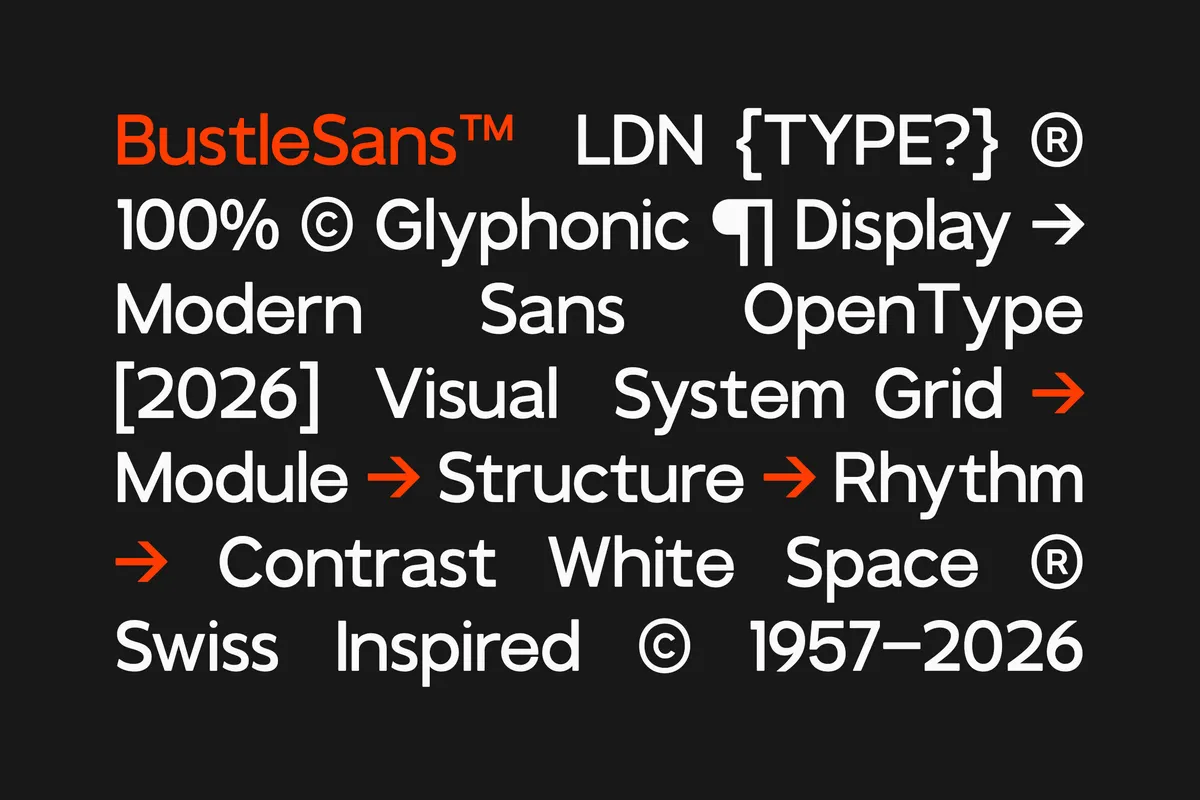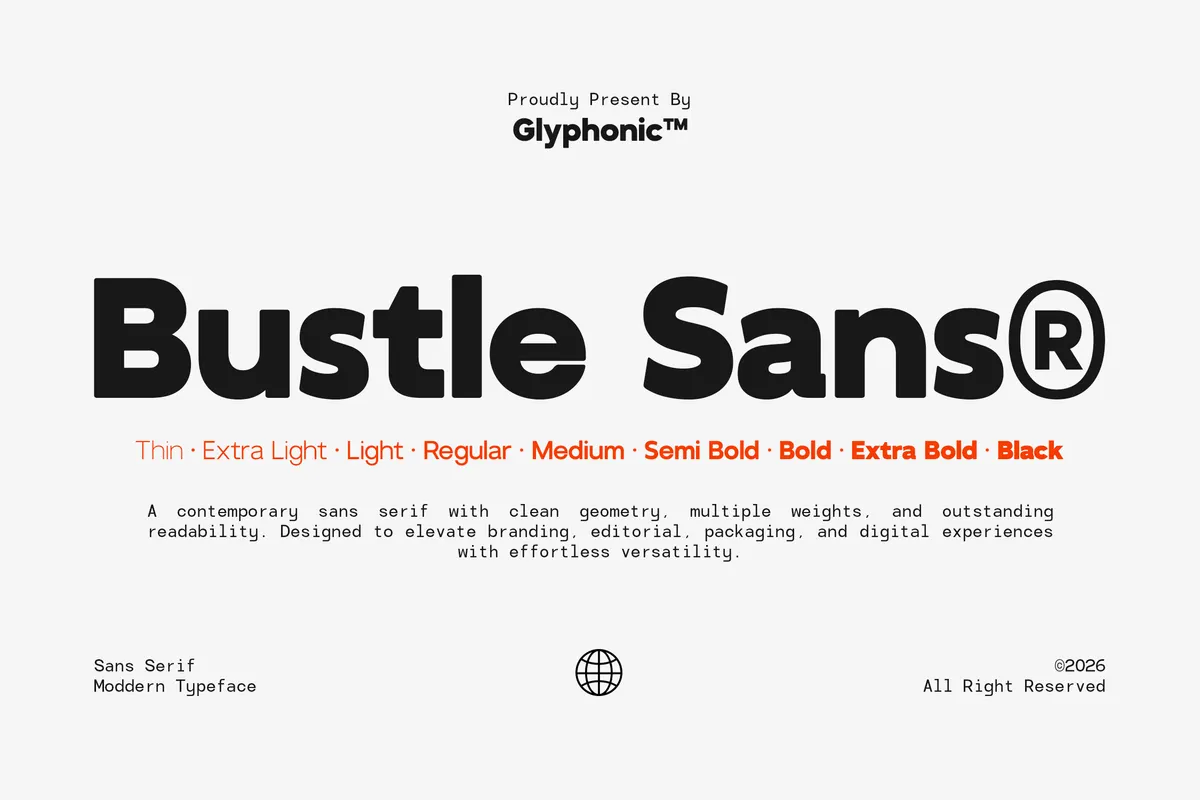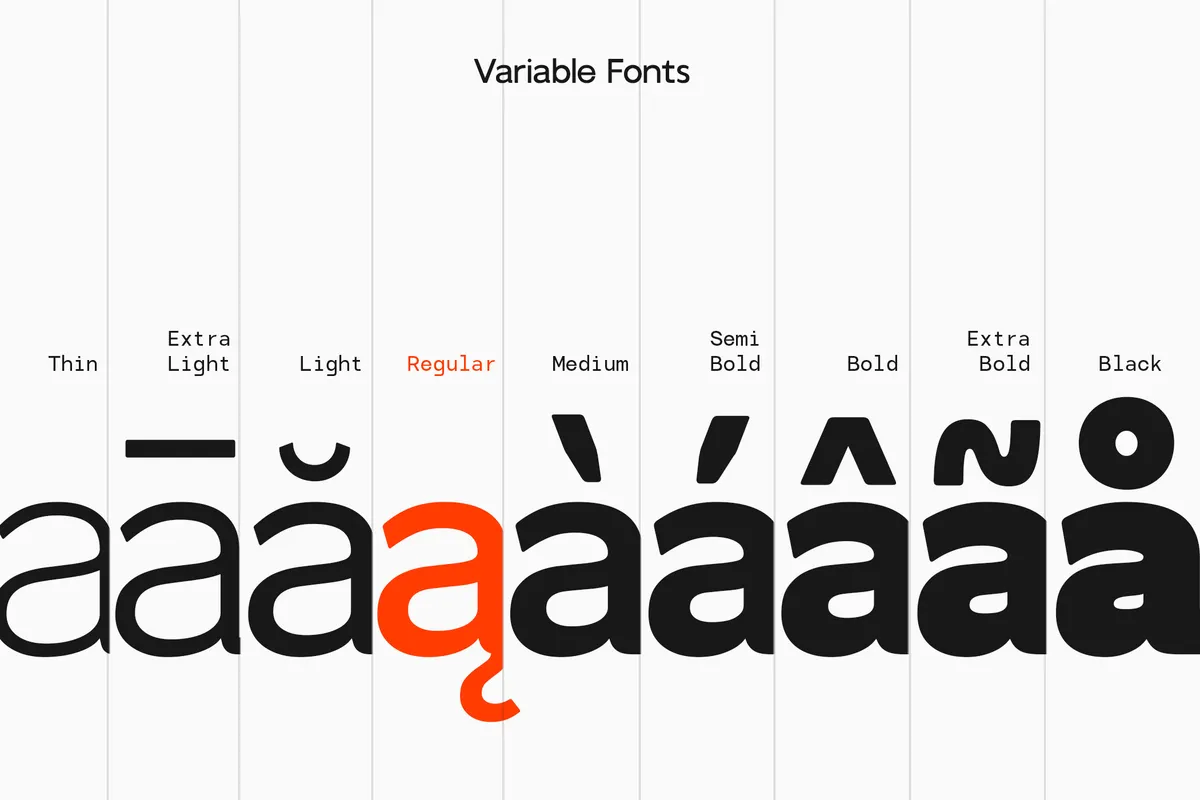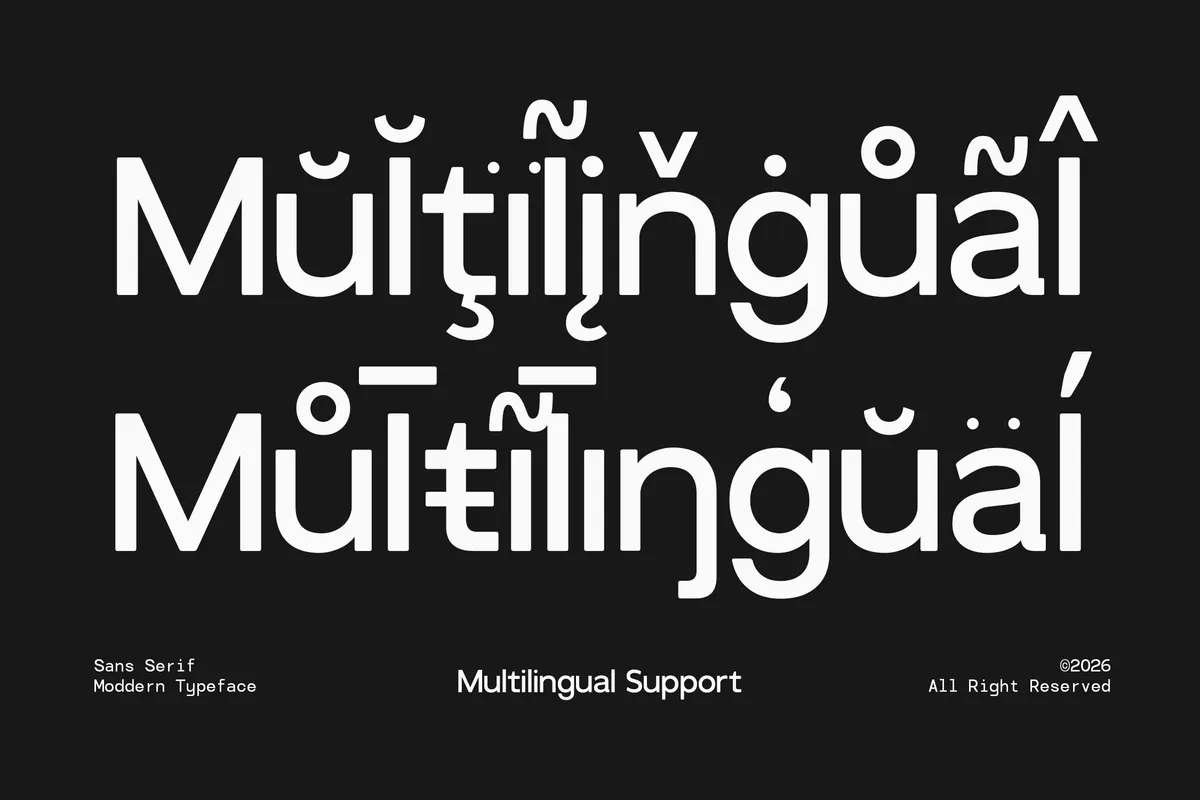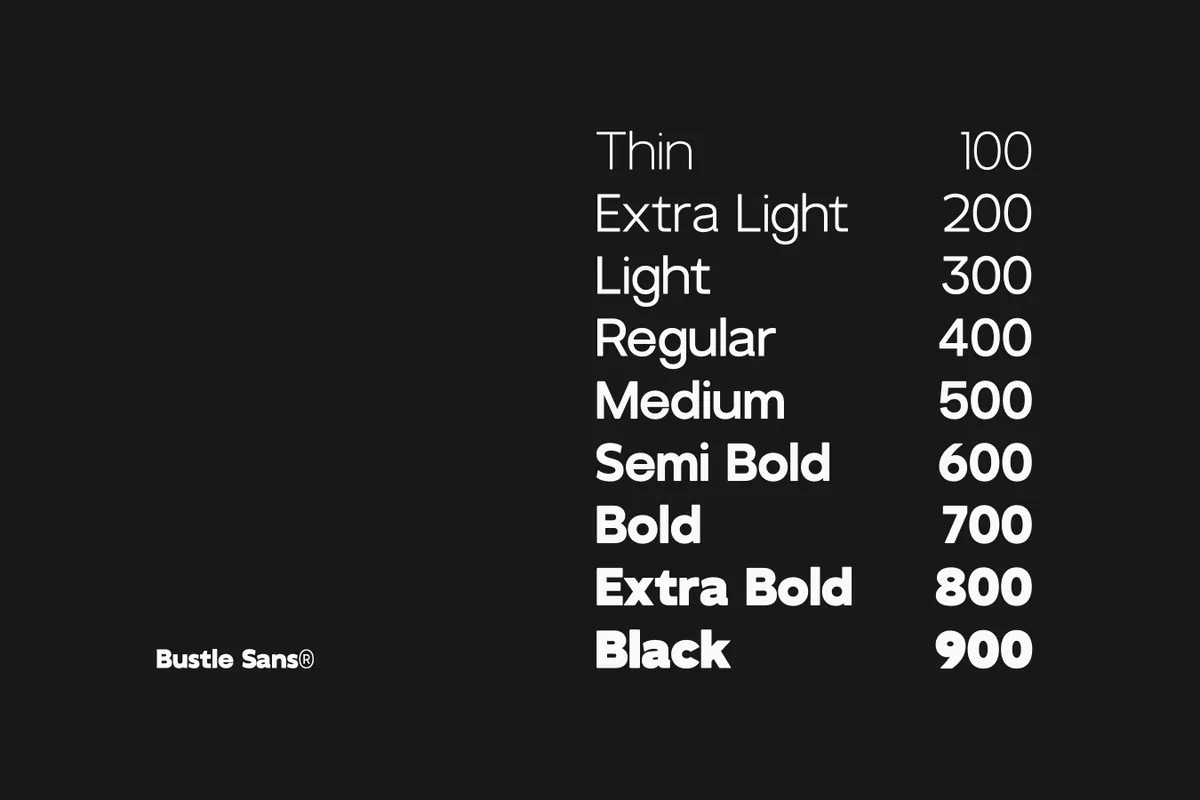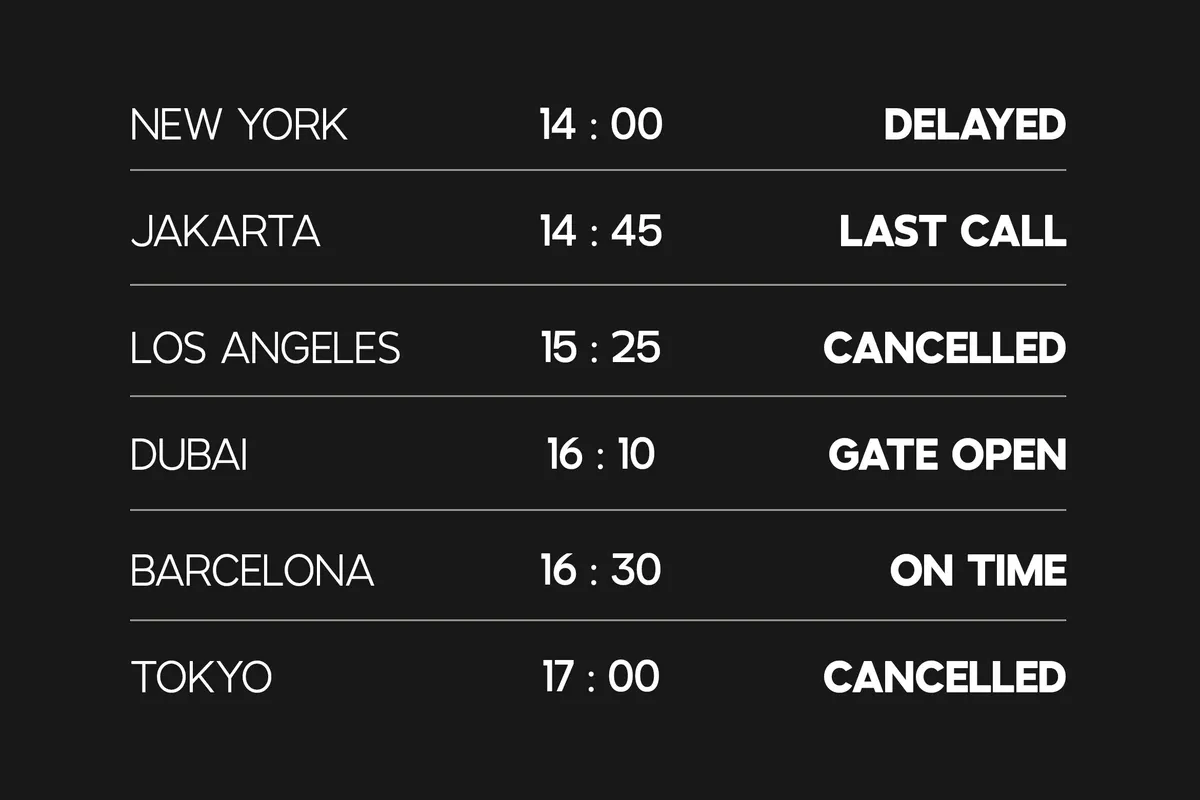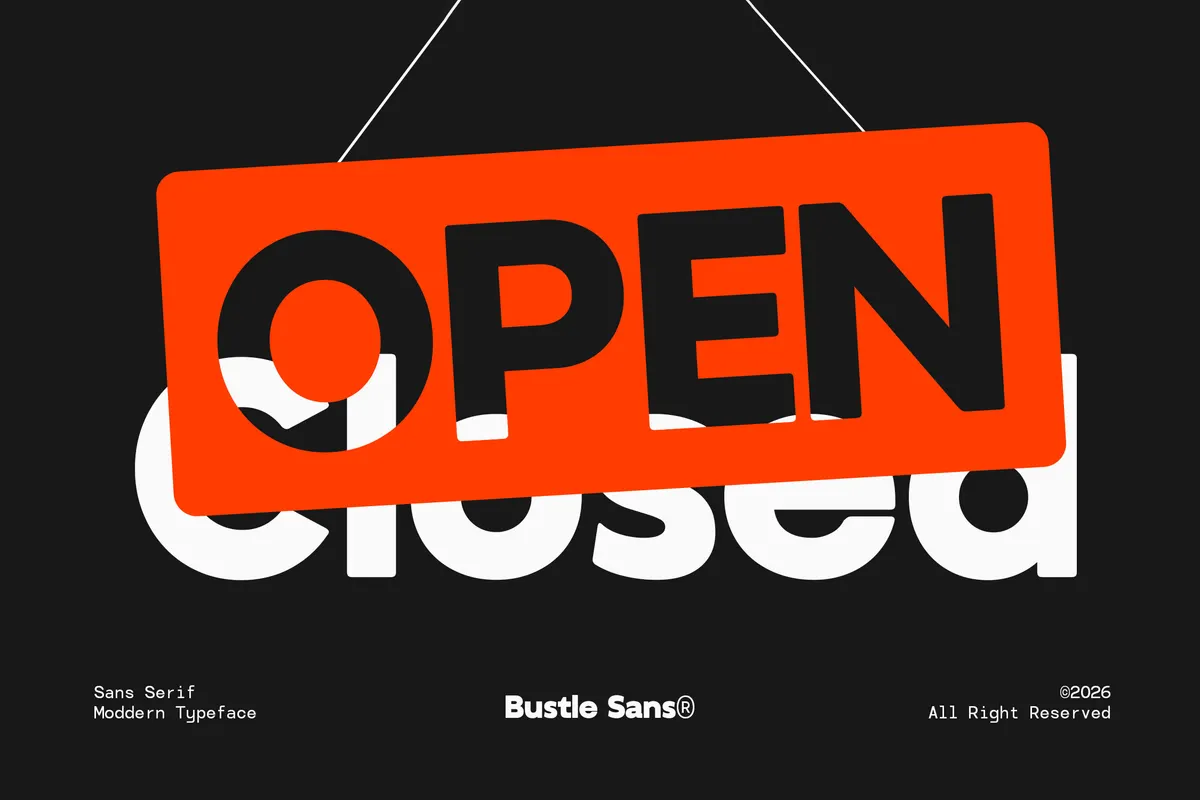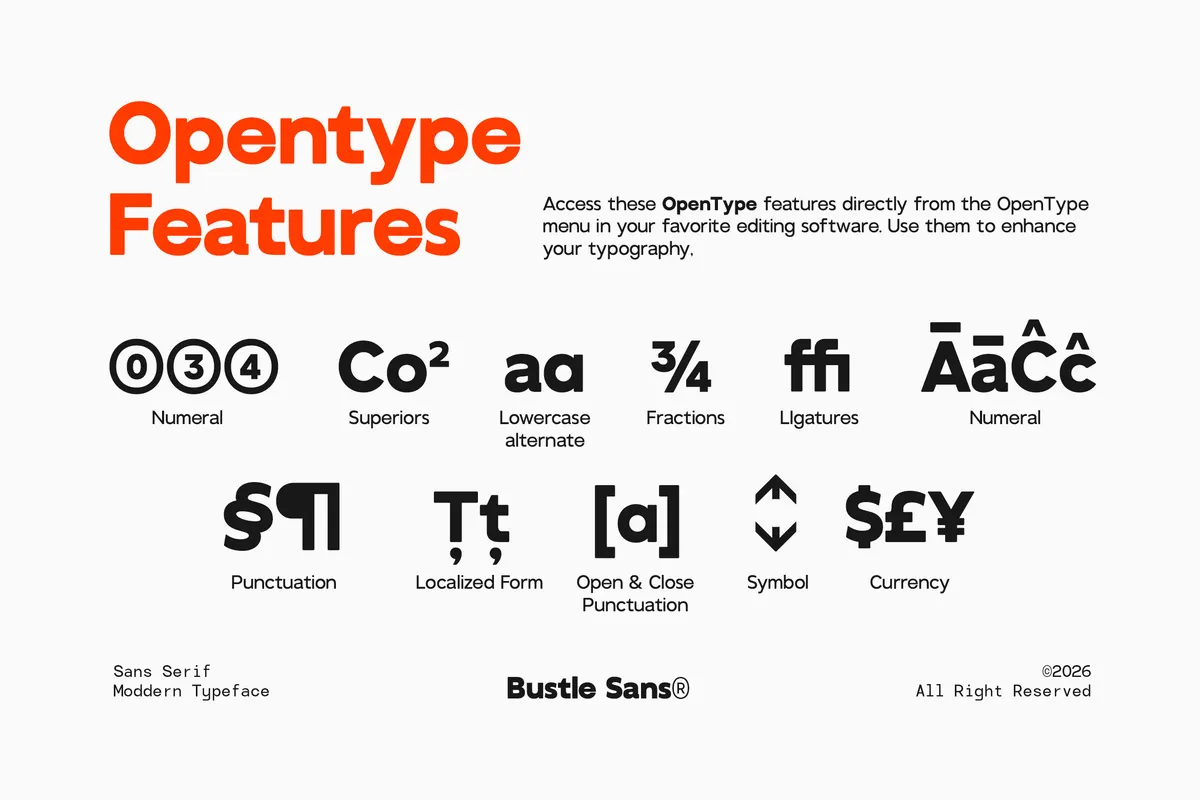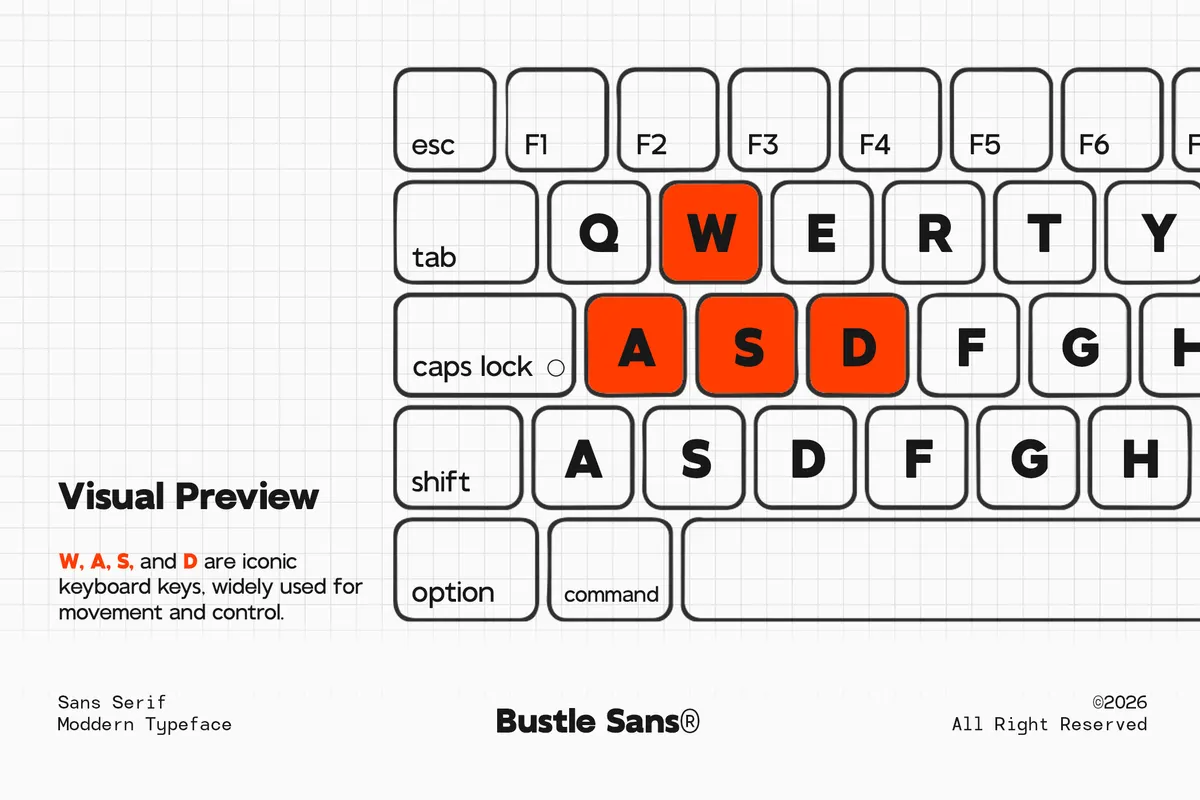
GC Bustle Sans - Modern Variable Sans Font
Bustle Sans builds a geometric skeleton with balanced proportions and even stroke weight, refined enough to hold up at both headline and body sizes. Nine weights move from a hairline Thin through a dense Black, and a variable font covers that same 100–900 range in a single file. A stylistic alternate set swaps in looser forms for C, J, Q, R, S, and a, all reachable through the OpenType panel.
Use it for branding and logotypes, editorial headlines, web and UI design, poster and packaging design, and social campaign graphics.
- Uppercase & lowercase;
- Numerals, punctuation & symbols;
- 9 weights: Thin, ExtraLight, Light, Regular, Medium, SemiBold, Bold, ExtraBold, Black;
- Variable font covering the full 100–900 weight range;
- Stylistic alternates on select characters, ligatures, fractions, superscript figures, circled numerals;